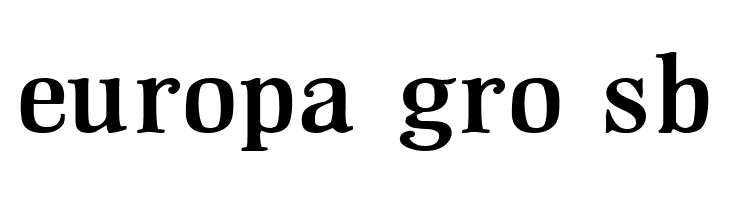
A bold, angular font with a futuristic and dynamic design.
A bold, angular font with a futuristic and sporty aesthetic.
A modern, high-contrast serif font with tall, narrow letterforms and elegant serifs.
A decorative and historical script with intricate, bold characters.
A sleek, modern font with geometric, monospaced characteristics.
A three-dimensional geometric font with a dynamic and intricate design.
A playful, handwritten font with a casual and informal style.
A dynamic script font with fluid, interconnected letterforms and a playful aesthetic.
An abstract, ink-splatter style font with a highly decorative and artistic appearance.
A bold, distressed font with a grunge, halftone texture.
A playful, handwritten font with a casual and whimsical style.
A playful, handwritten font with uneven strokes and a casual style.
A bold, pixelated font with a retro digital style.
An ornate and decorative font with intricate, snowflake-like patterns.
A modern, geometric font with sharp angles and clean lines.
A bold, dripping font with a spooky, horror-themed aesthetic.
A playful, outlined font with a hand-drawn, whimsical style.
A playful, dripping font with an organic, hand-drawn style.
A bold, angular font with a modern twist on traditional Blackletter style.
A playful, dripping font with a spooky, liquid-like appearance.
An elegant script font with flowing, ornate letterforms and intricate swashes.
An ornate, decorative font with intricate floral patterns within square frames.
A bold, classic serif typeface with strong strokes and clear readability.
An abstract, graffiti-like font with chaotic and overlapping strokes.
A sketch-like, hand-drawn font with bold, overlapping strokes and an artistic feel.